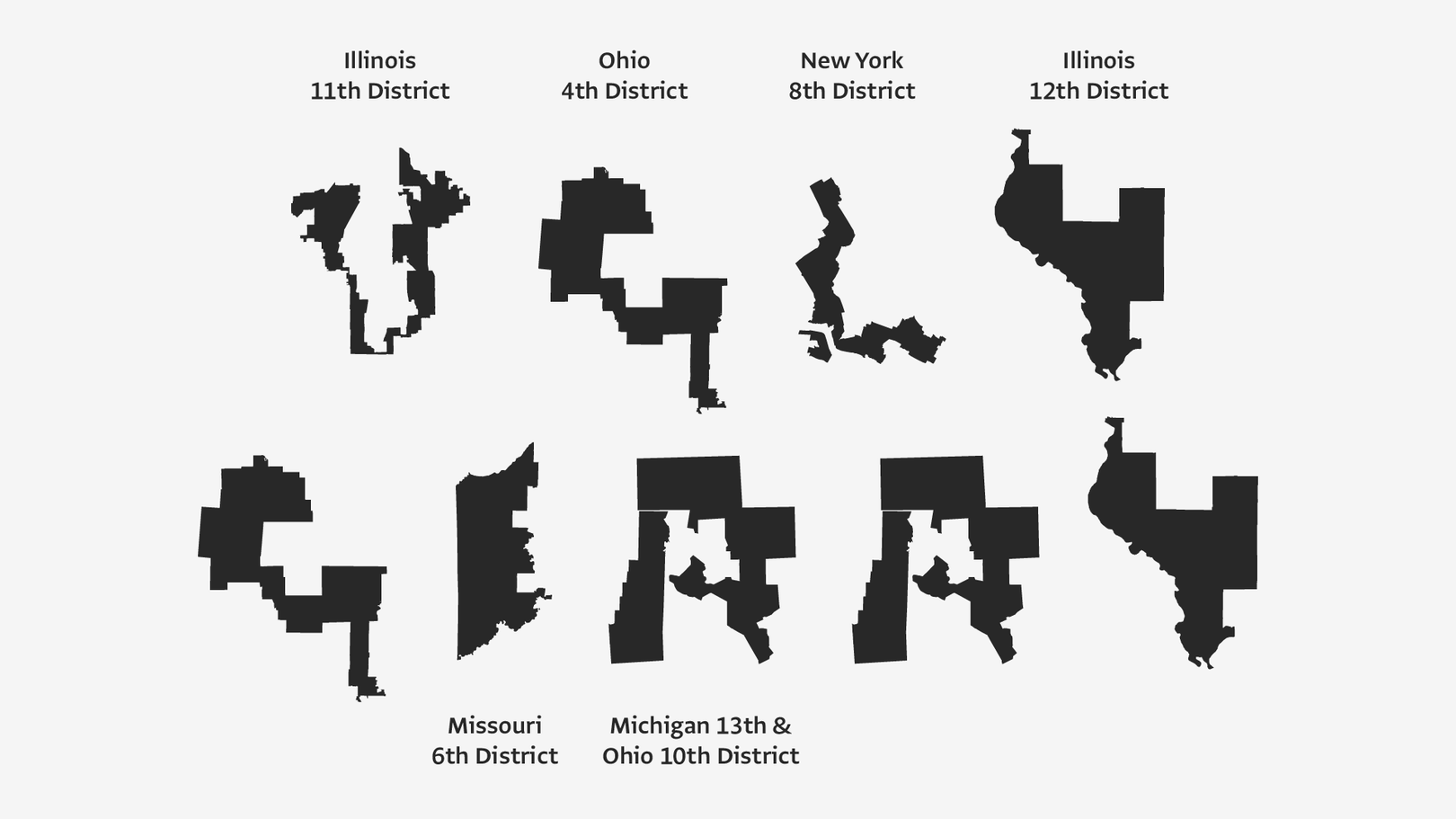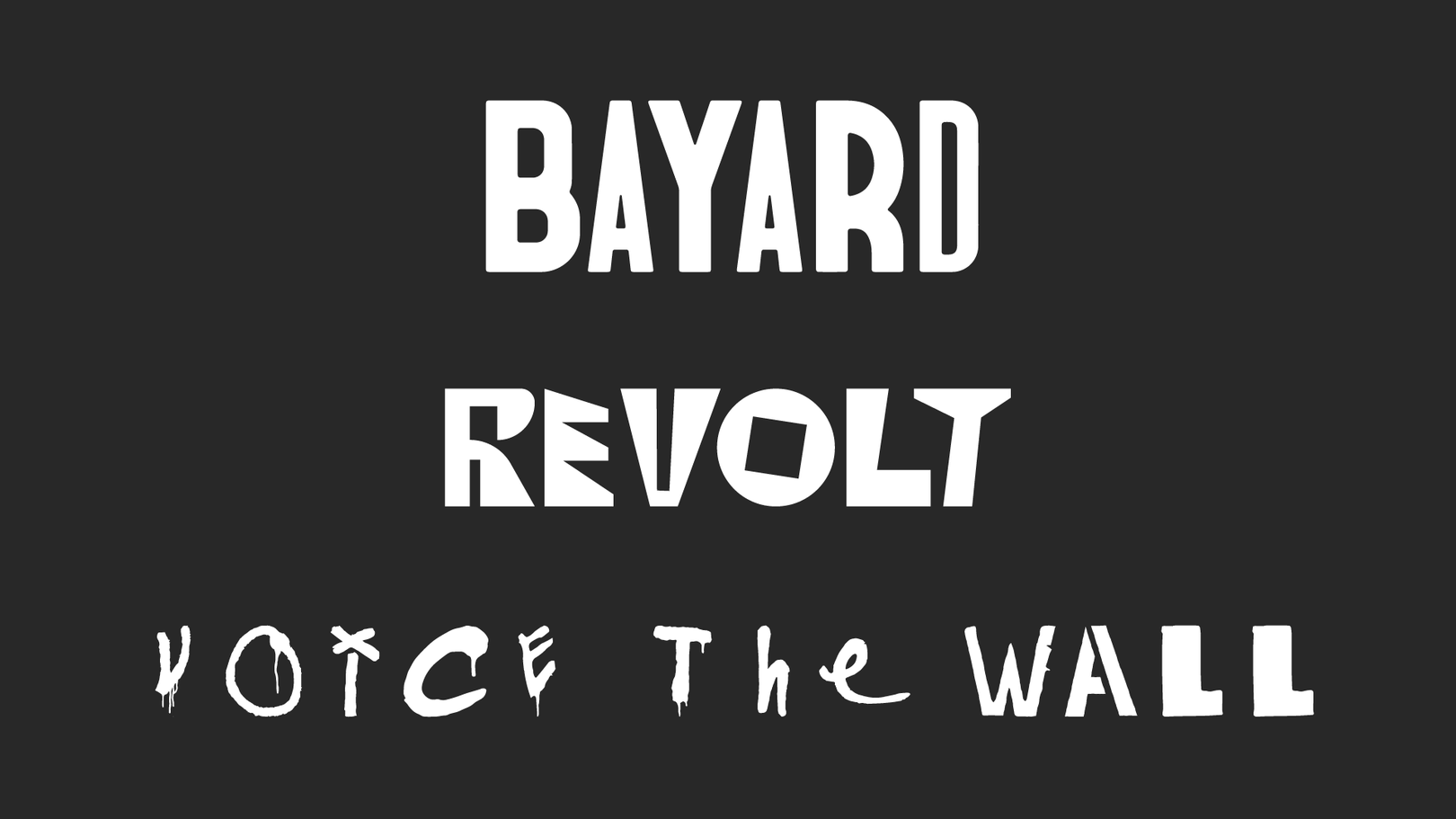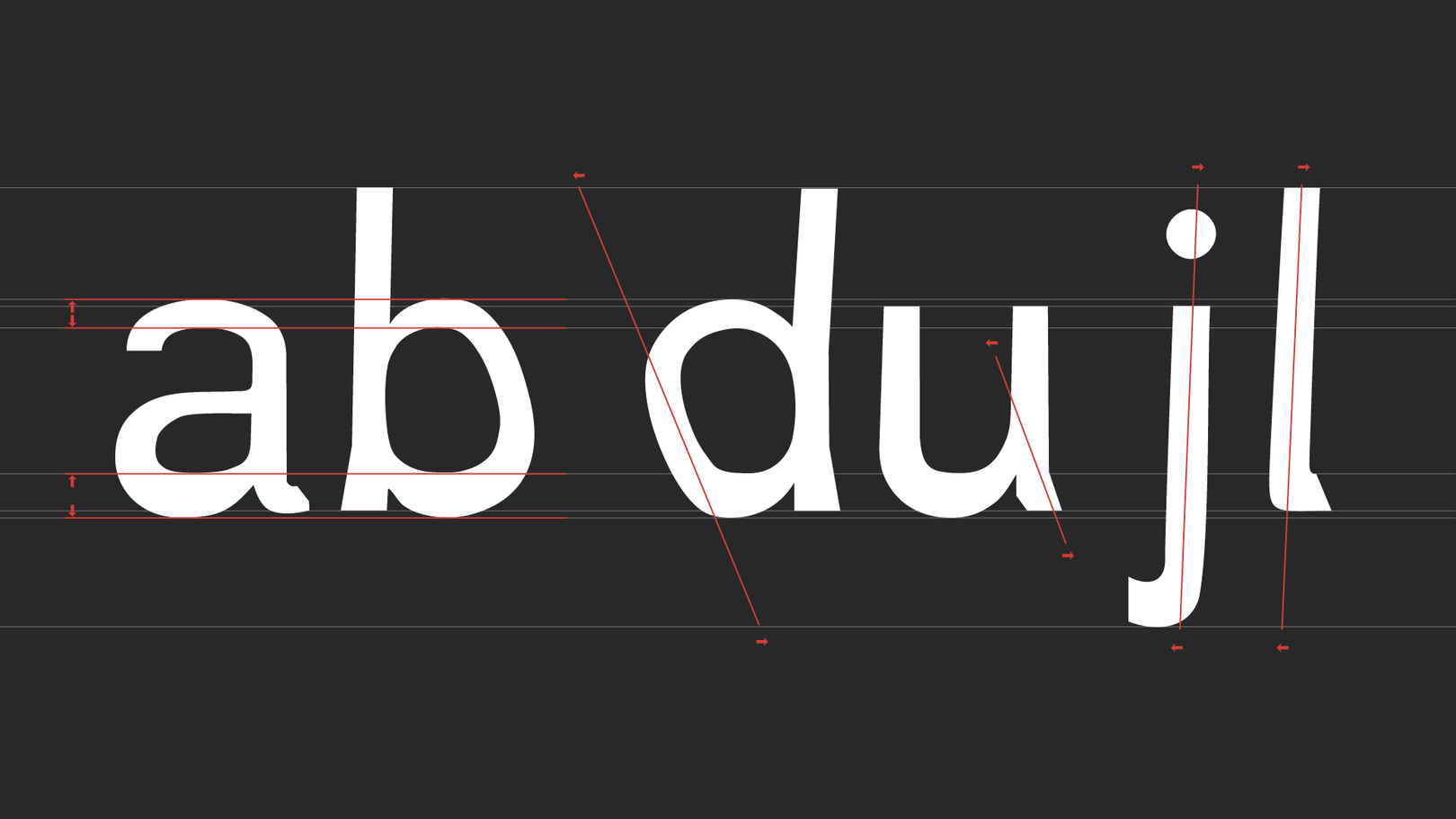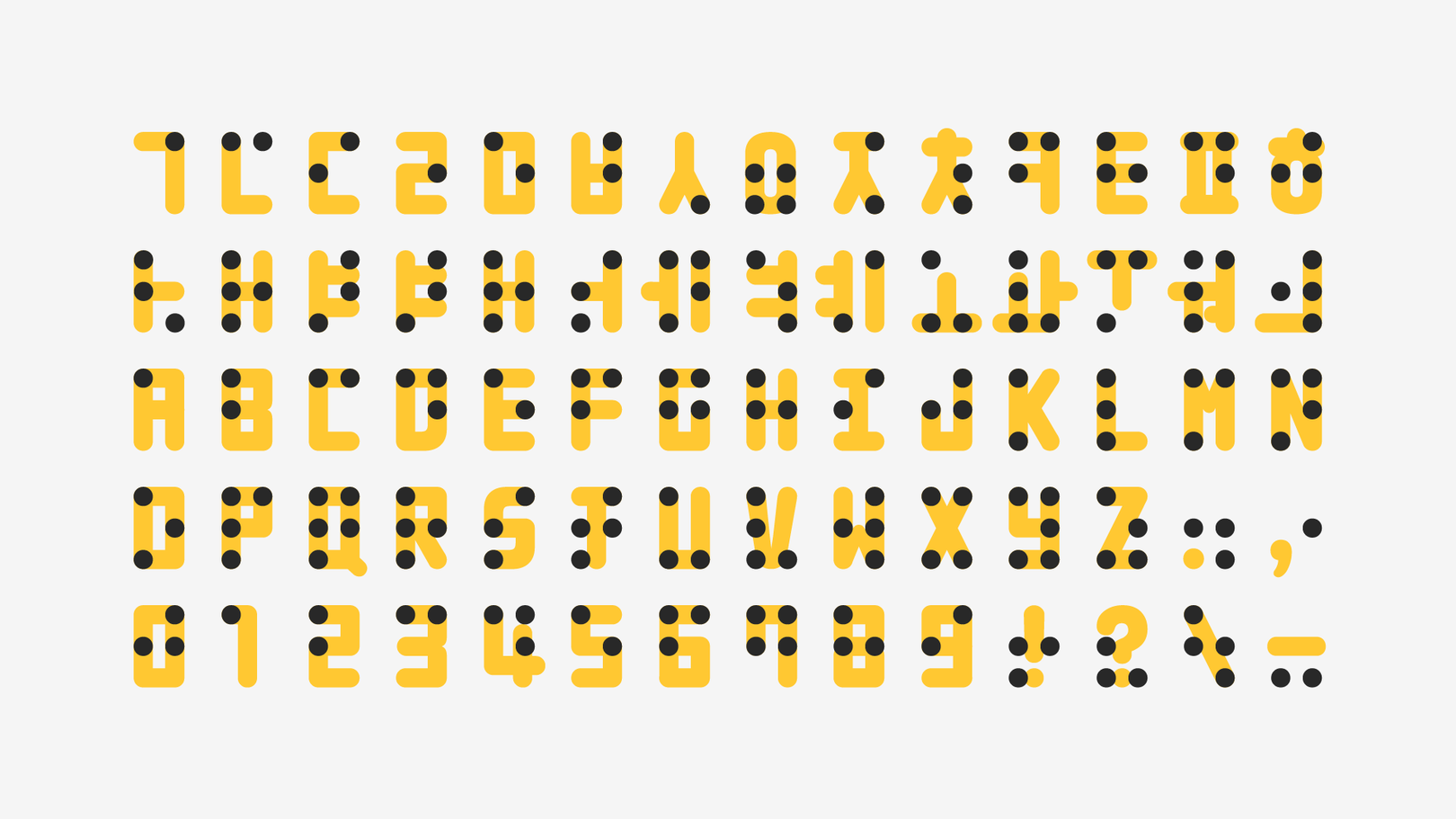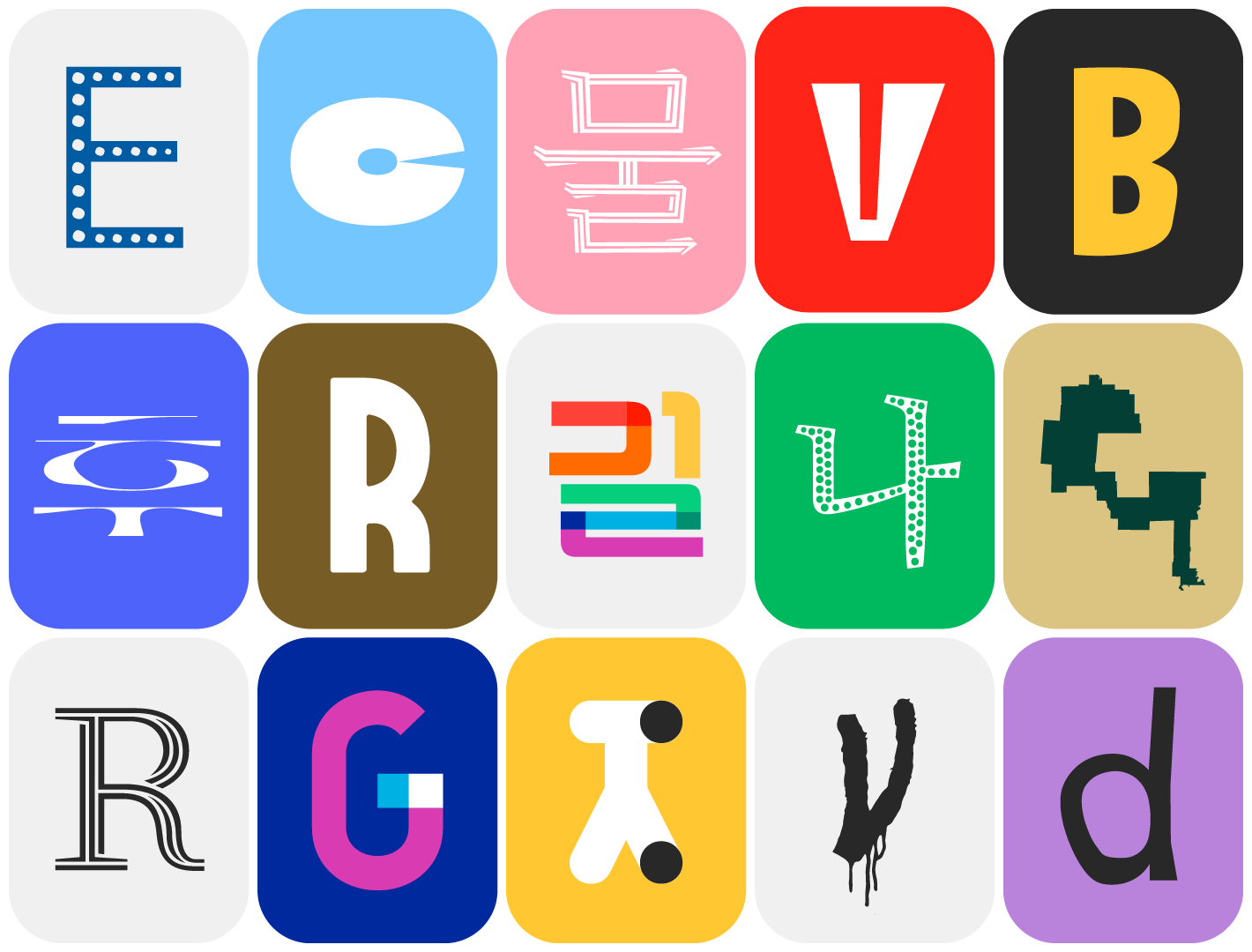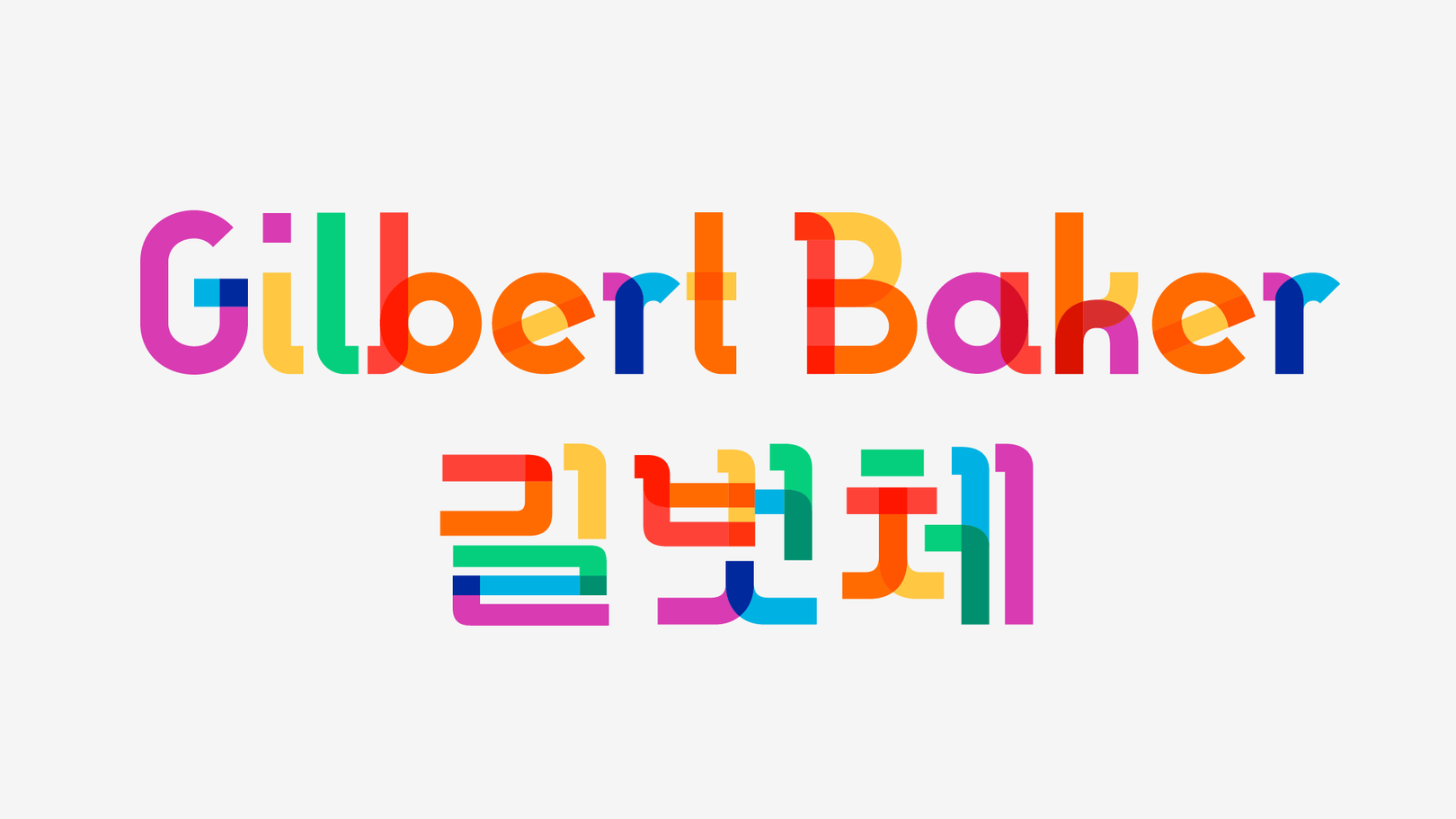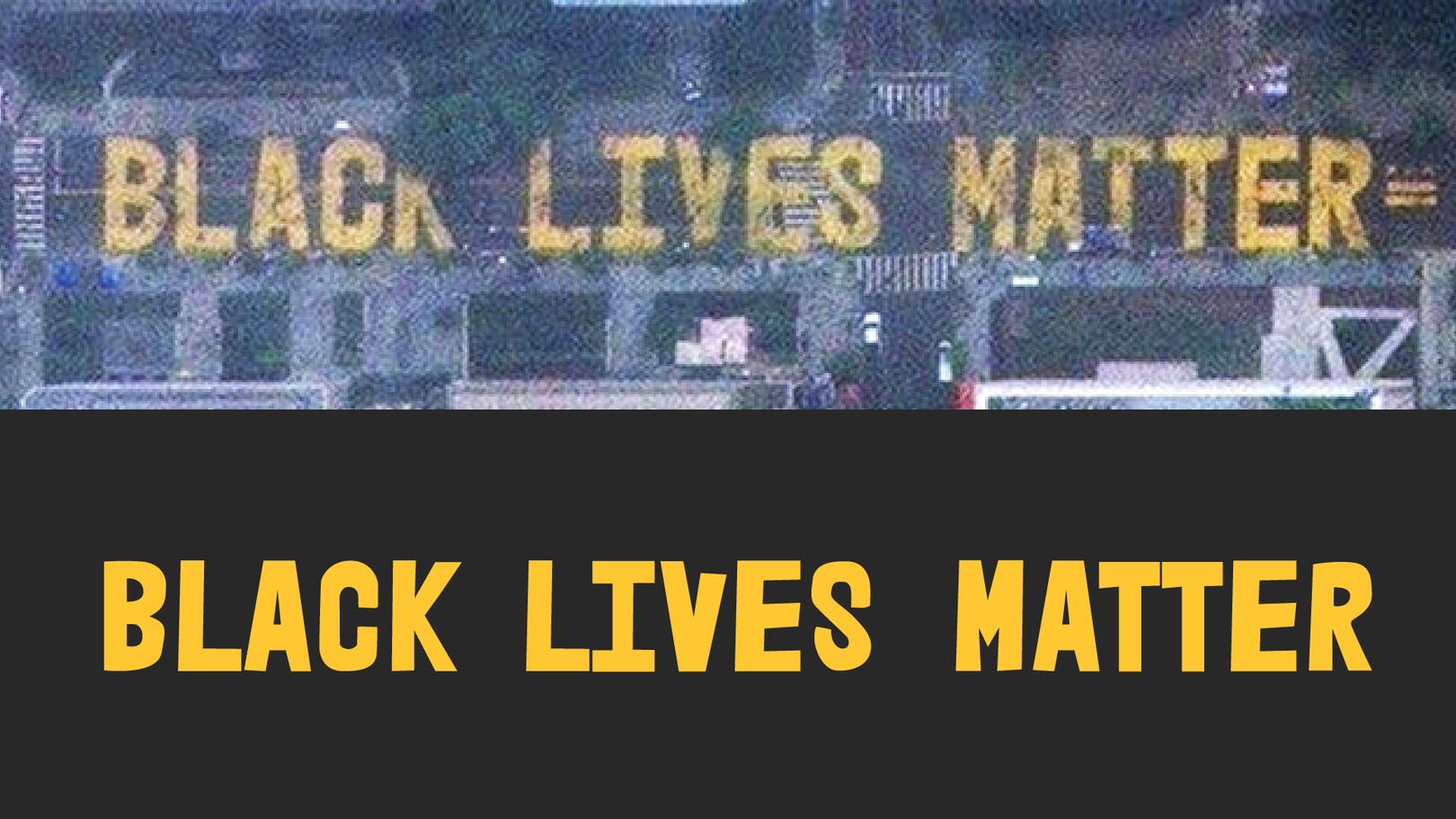
Beliefs and Values Expressed Through Fonts
Have you heard the term “value-driven consumption,” which has been increasingly used across many areas of everyday life? Value-driven consumption refers to a way of purchasing goods and services based on one’s own value judgments, and it appears in various forms. Examples include “meaning out”*, where people express their political or social beliefs through consumption, and “green consumers,” who choose environmentally friendly products. In Korea, what is often referred to as “ethical consumption” also represents a form of value-driven consumption.
The reason value-driven consumption has emerged as a major consumer trend is that both consumers and producers are no longer considering economic value alone, but are instead proposing and choosing directions that hold at least some degree of value. It can also be seen as a reflection on the many problems caused by the long-standing pursuit of economic value alone.
*Meaning Out: a term combining “meaning,” which signifies belief, and “coming out,” meaning to come out of the closet.
Among the many fonts we encounter in our daily lives, there are also fonts created to embody such social values. Because fonts are reproduced into new creative works through creators, they spread more quickly and widely, become embedded more deeply in everyday life, and can serve as a highly effective and powerful means of conveying social messages.
Ecofont: Perhaps the Smallest Step Toward Caring for the Environment
Although its share has declined with the development of various media, print still remains significant. Every day, countless sheets of paper are filled with densely printed text. The Netherlands-based “Ecofont” was the first to attempt a font design that saves ink by perforating letters with tiny holes. Ink is highly toxic, and once disposed of, cartridges can take an extremely long time—up to 450 years—to fully decompose. By introducing holes into letterforms, “Ecofont (Link)” is said to reduce ink consumption by approximately 50% (based on Buyerslab research results, Link)*. In 2009, starting with 「Spranq eco sans」 developed by “Ecofont” and “Spranq (Link),” the initiative expanded through collaborations with various overseas foundries, selling perforated versions of existing fonts. Today, Ecofont offers solution software that automatically perforates any font during the printing process.
*Buyers Laboratory Inc.: A company that provides information on the imaging industry by testing devices such as printers, multifunction machines, fax machines, scanners, and digital imaging software, and publishing the results.
Similar efforts have also appeared in Korea. In 2009, designer Lee Yongje demonstrated the potential of eco fonts for Hangul through 「Akkineun Geulja (Link)」*. In 2012, “Naver” collaborated with “Ecofont” to perforate the Nanum typefaces, developing 「Nanum Ecofont (Link)」**.
*A font created in an eco-font style by adding a checkered void to the skeleton of the previously released Arita Dotum. When printed at body-text sizes of 8–12 pt, the empty spaces are not visible, and it allows approximately 15% more output compared to Arita Dotum. It was not released as a font and therefore cannot be used in practice.
**A font produced by Naver in 2012 through a technical partnership with Ecofont, adding small holes to the previously released Nanum Myeongjo and Nanum Gothic to save ink. Compared to the original Nanum Myeongjo and Nanum Gothic, it saves approximately 35% of ink (Nanum Myeongjo Eco Regular 26–27%, Nanum Gothic Eco Regular 34–35%). The recommended size is 7–11 pt.
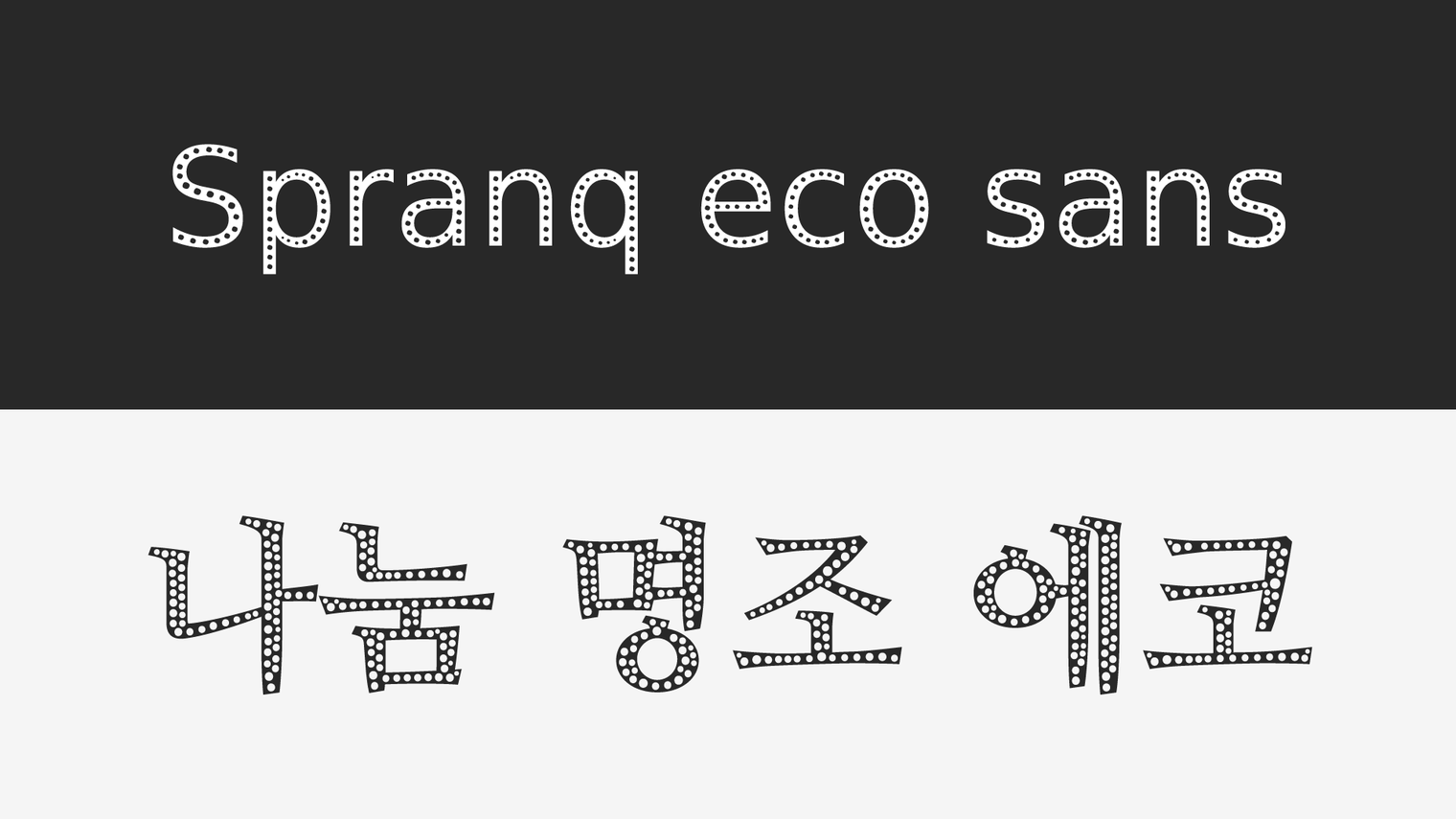
「Spranq Eco Sans」 and 「Nanum Myeongjo Eco」
However, designers cannot pursue meaning alone. While embedding their beliefs into fonts, designers also strive to create type that can be used across many contexts and remains visually appealing. In recent years, approaches have emerged that go beyond simply perforating letters, instead using the structural elements of letterforms to place greater emphasis on aesthetics.
「Ryman Eco」 (Link), released in 2015 by the UK stationery retailer Ryman, is an environmentally conscious font designed with sustainability in mind. It was created through a collaboration between Monotype’s type director Dan Rhatigan and the London-based advertising agency Grey London. The font was designed to balance environmental considerations with refined visual form.
In a similar vein, there is also an eco-font that leverages the characteristics of Hangul: “Mulpu-re” (Link) by designer Bae Seongwoo. Although it has not yet been released, “Mulpu-re” proposes ways to save ink by effectively utilizing the inherent features of Hangul.
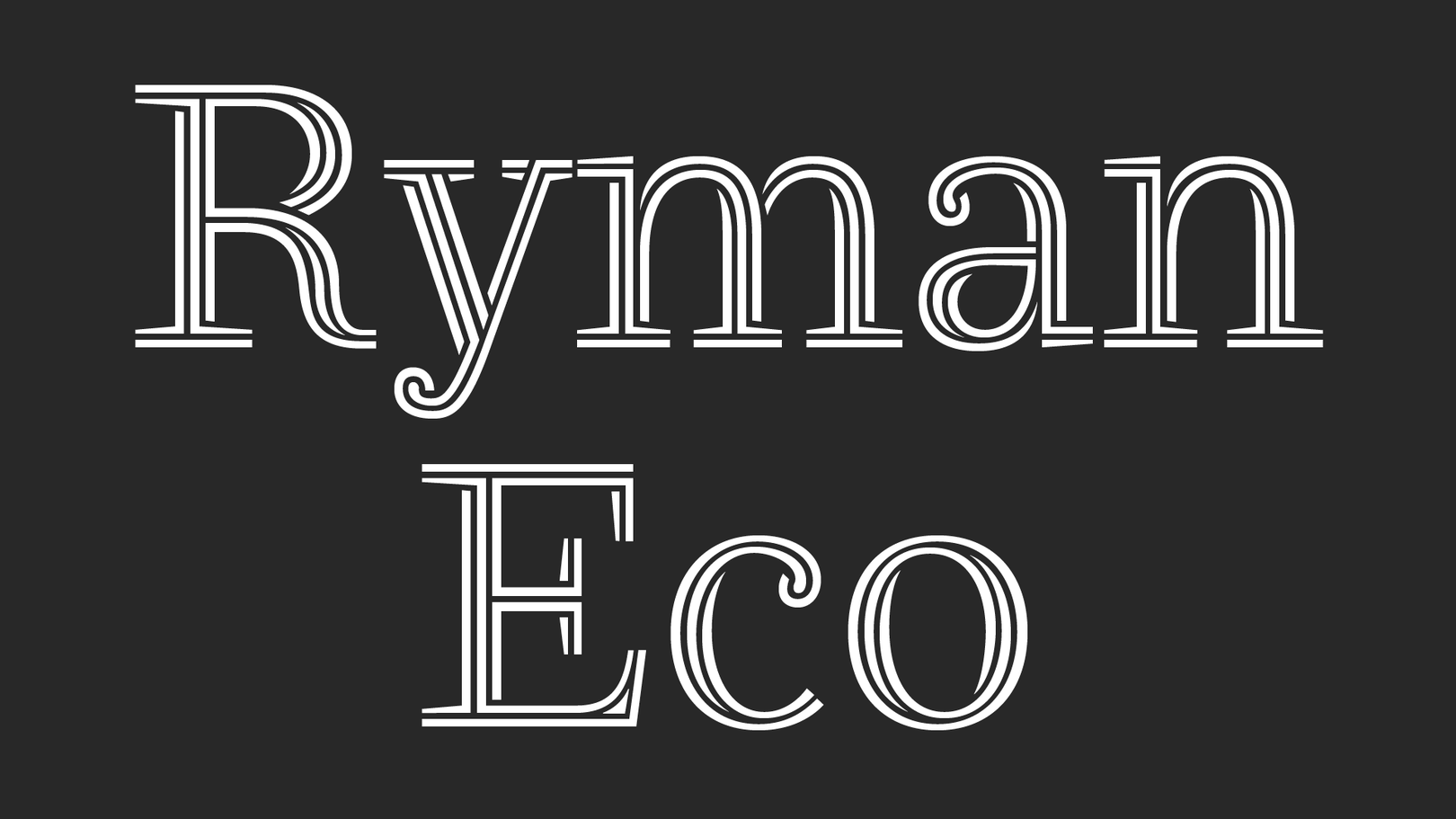
「Ryman Eco」
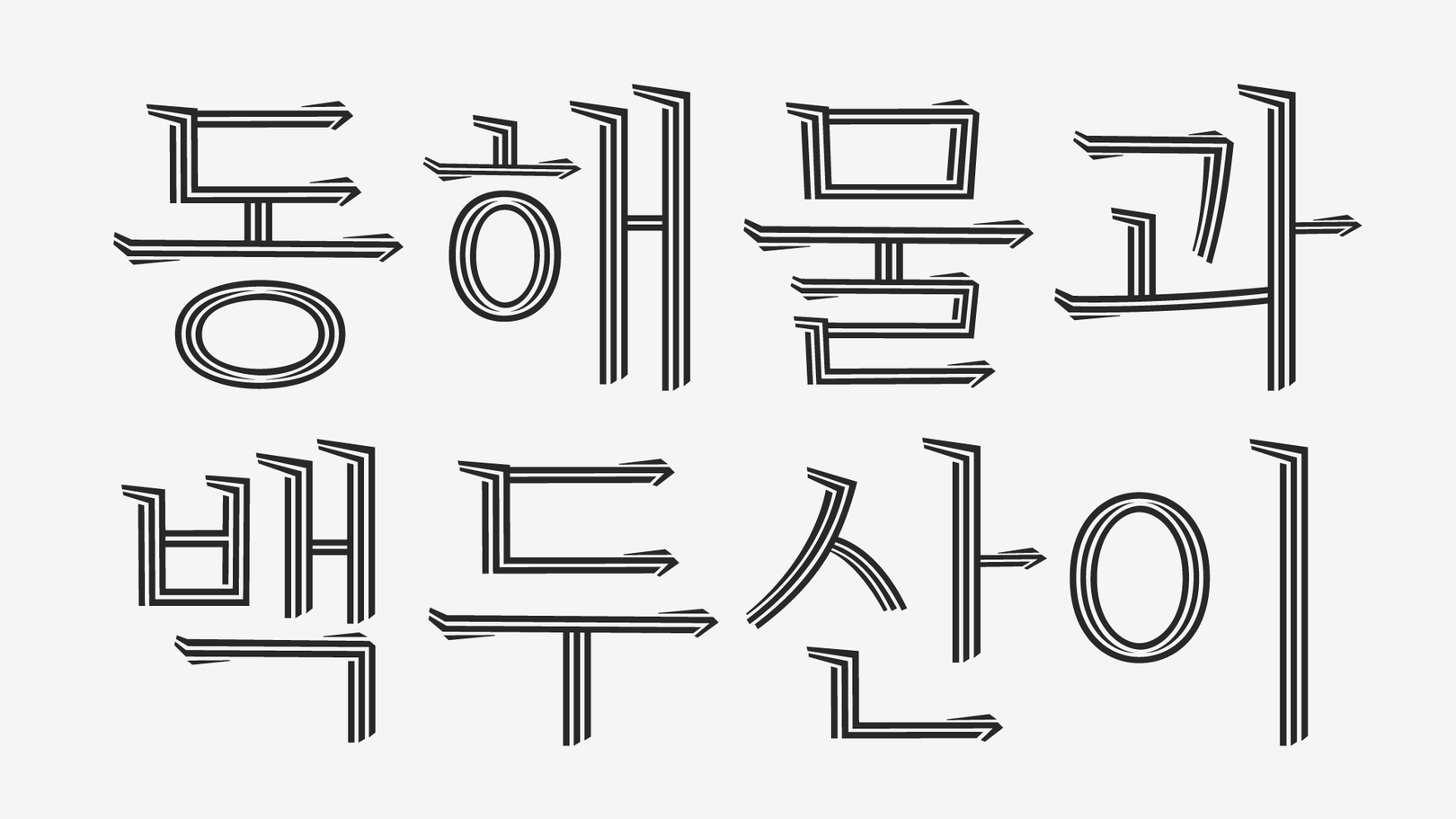
「Mulpu-re」
Type to act (Type to take action.)
While the fonts mentioned earlier enable individuals to practice environmental protection in a direct, personal way, there are also fonts created to raise awareness of environmental issues among a much broader audience. Helsingin Sanomat (Link), the largest newspaper in Northern Europe, developed the climate-crisis font 「Climate Crisis Font」(Link) to alert people to the climate emergency caused by global warming. Using variable font* technology—which has been widely adopted in recent years—the font visually represents shrinking sea ice by reflecting its changing forms directly in the letter shapes. With time (years) set as an axis**, the letterforms gradually melt and appear to sink into water as the timeline progresses from 1979 to 2050. The letter area in 2050 is reduced by approximately 30% compared to the extent of sea ice in 1979, based on projections from the IPCC (Link)***.
*Variable Font: Literally meaning a “font that can change,” a variable font is a technology that allows multiple font attributes—such as weight, width, and slant—to be expressed continuously rather than as fixed values.